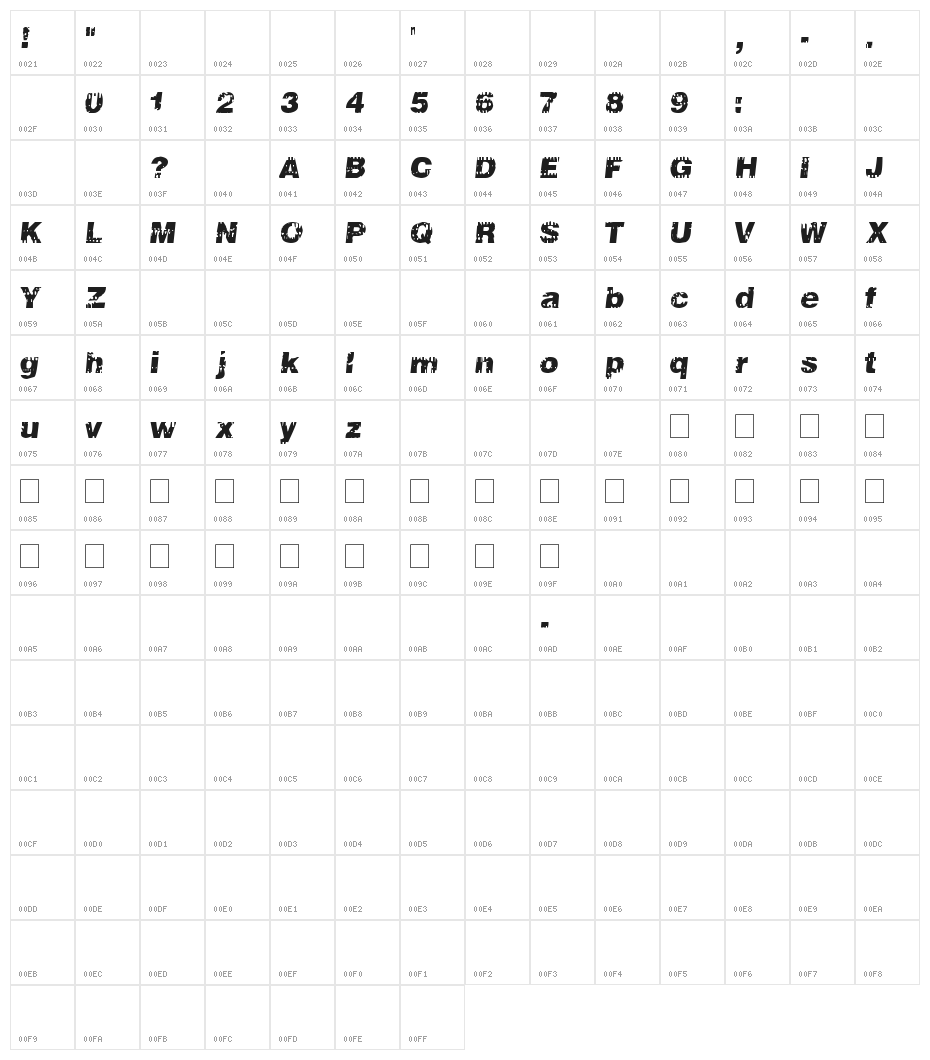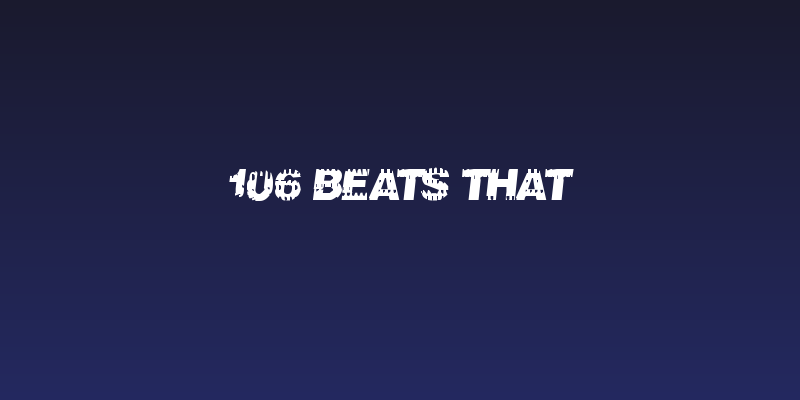
106 Beats That Font
106 Beats That Description
This font features a bold and dynamic style with a distressed, grunge-like texture that gives it a unique and edgy appearance. The characters are bold and slightly condensed, with irregular patterns that create a sense of movement and energy. The uppercase and lowercase letters maintain a consistent style, with the texture adding a layer of complexity and visual interest. Numbers and special characters follow the same design principles, ensuring a cohesive look across all elements. The font's distinctive style makes it ideal for projects that require a strong visual impact.
| Overall Style | Modern, Grunge |
| Proposed Projects | Ideal for music album covers, event posters, urban-themed designs, and branding that requires a bold statement. |